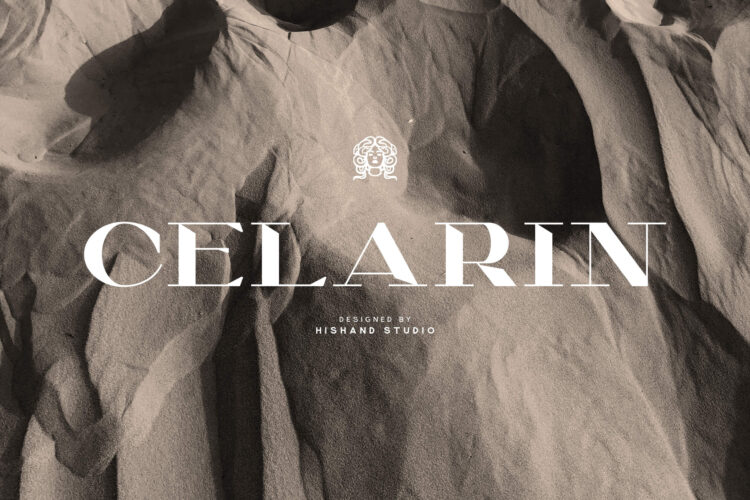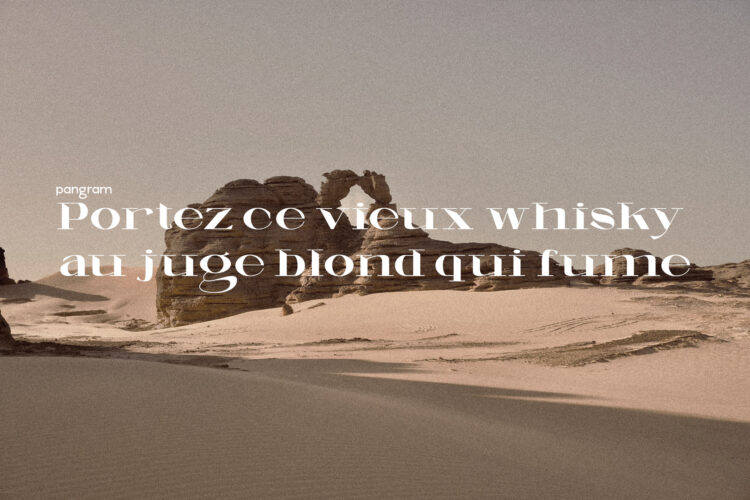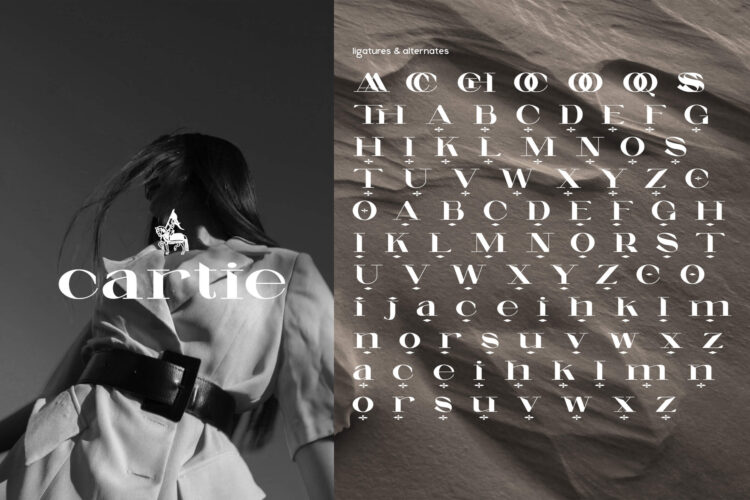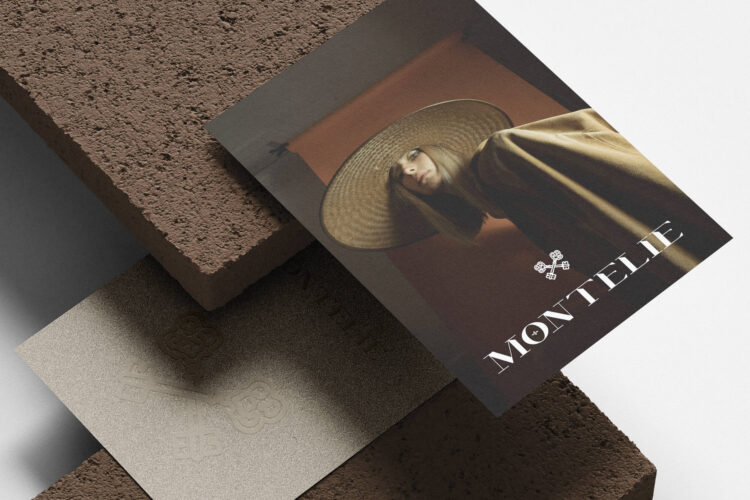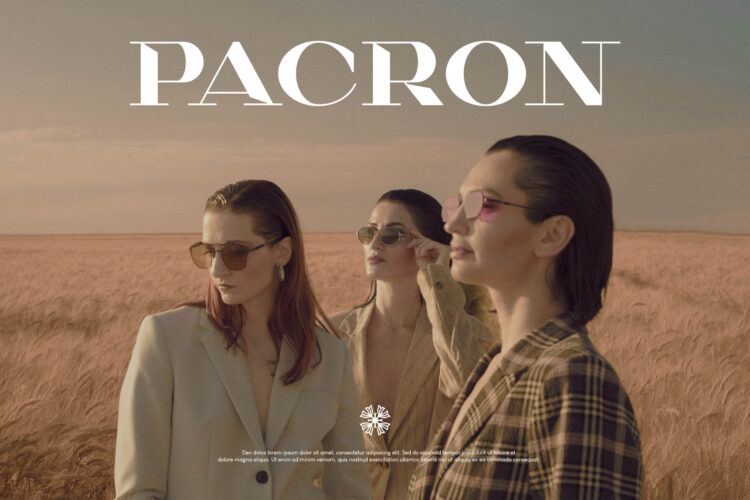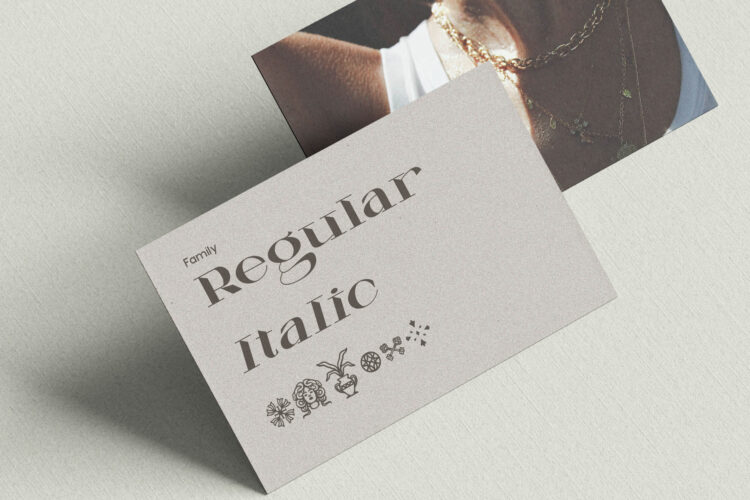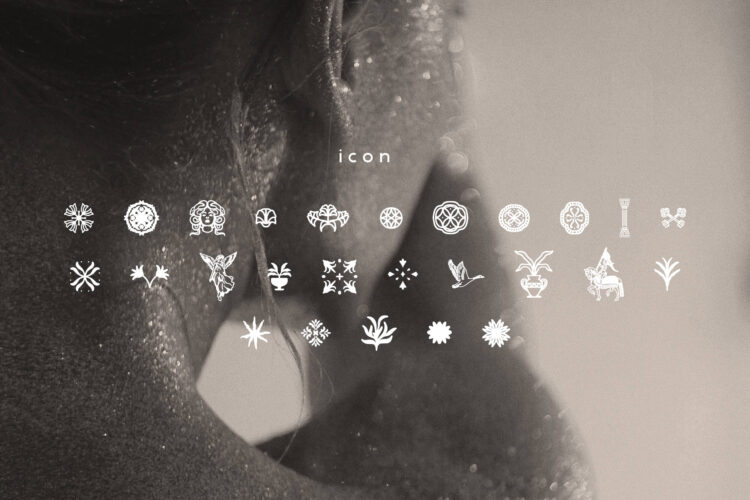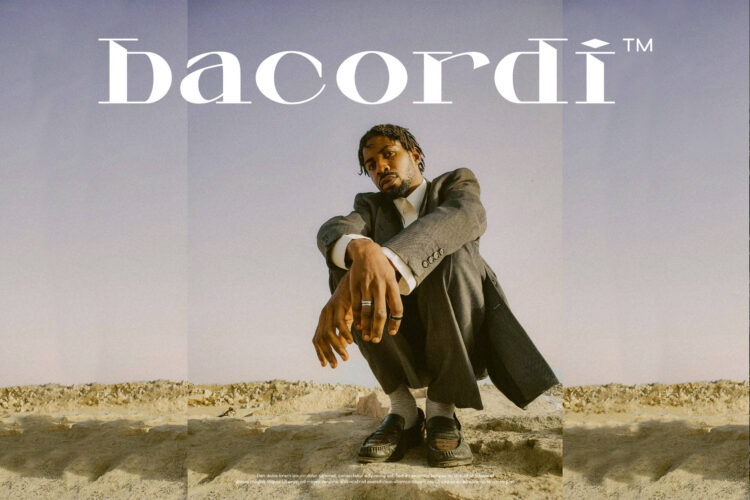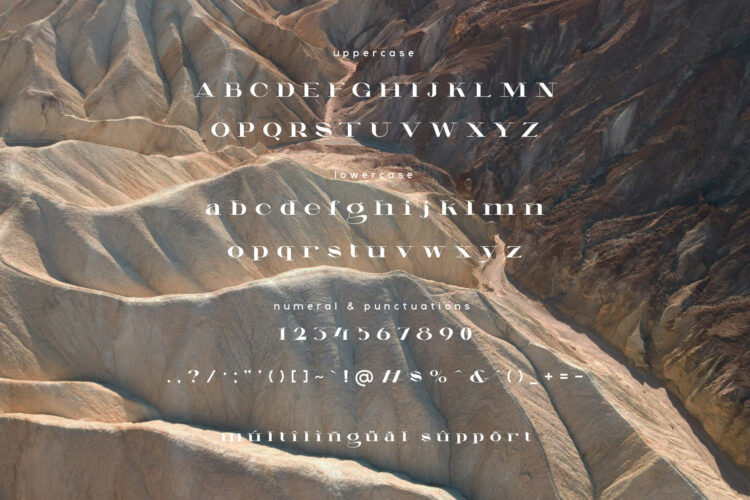
CELARIN
CELARIN Italic
CELARIN Icon
Description
Celarin is a bold yet elegant serif font that feels effortlessly stylish. With its sharp lines and striking contrast, it walks the fine line between modern sophistication and timeless charm. The clean geometry of each letterform is balanced by subtle details, such as graceful curves, extended serifs, and dramatic transitions, that give it character and make it feel refined without being overly decorative.
Designed by Hishand Studio, Celarin was created for designers who want their work to feel intentional, elevated, and full of personality. It does not rely on trends to stand out. Instead, it carries a quiet confidence that speaks for itself. Whether used in a fashion campaign, a luxury brand identity, or a beautifully designed editorial spread, Celarin has the ability to elevate the tone of any project it touches.
One of the most powerful things about this typeface is its versatility. Despite its high-fashion roots, it adapts well across different contexts. Pair it with minimalist layouts for a sleek, modern vibe, or use it with rich textures and bold photography for something more expressive and cinematic. Its contrast makes it ideal for headlines and logos, where you want to draw attention, but its carefully crafted details also hold up beautifully in print or digital formats.
Celarin works best when you want your typography to do more than just communicate. It works when you want it to evoke a feeling, a sense of taste, a sense of story, a sense of luxury. It is perfect for brands that want to be seen as stylish, artistic, and premium, without ever being loud or overdesigned.
Celarin is not just a font. It is a statement. A quiet one, perhaps, but a powerful one all the same. Whether you are designing for a fashion house, curating a modern magazine layout, or creating packaging for high-end products, Celarin helps your message look as refined as it sounds. Let your words speak with grace, clarity, and timeless elegance.
CELARIN Display Font